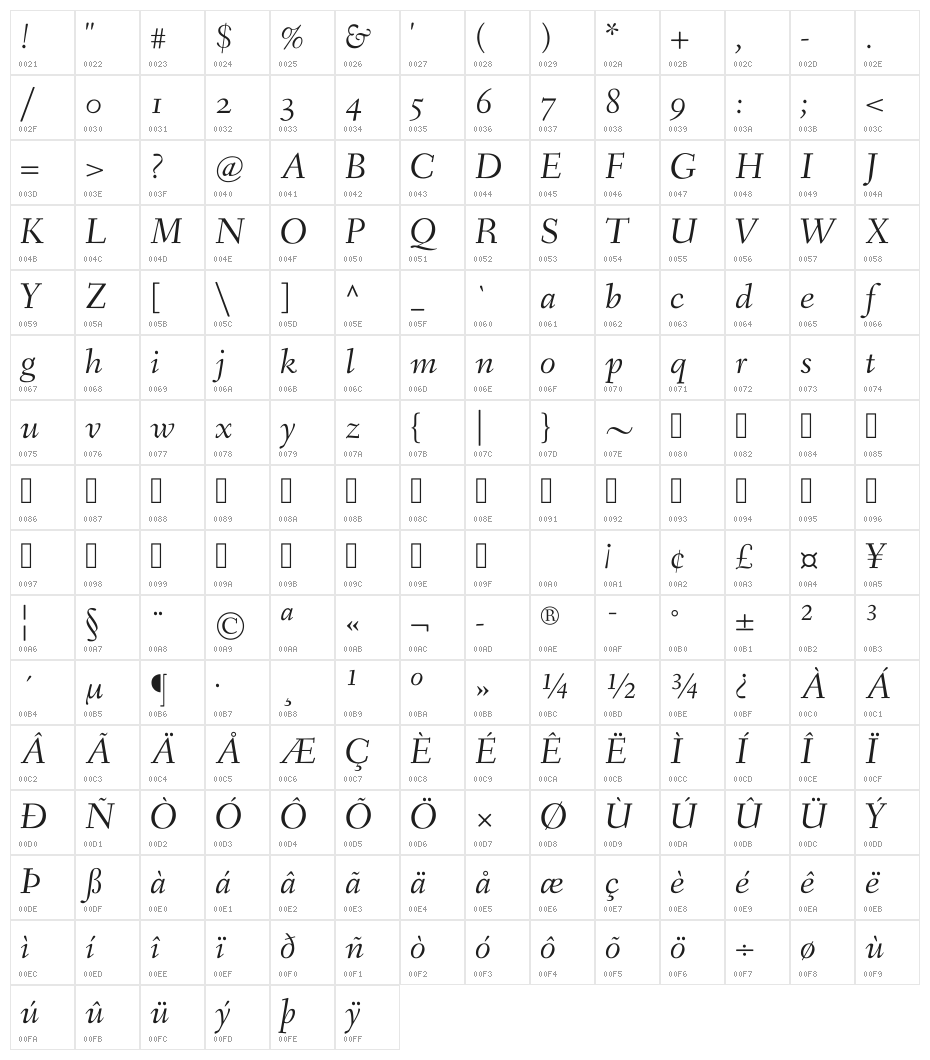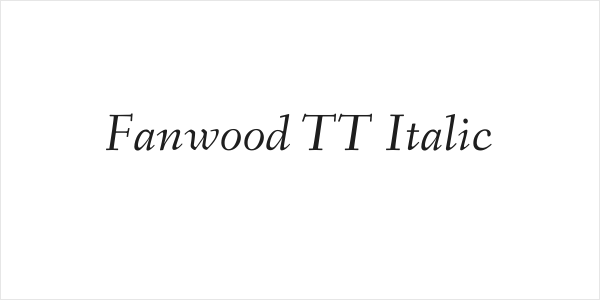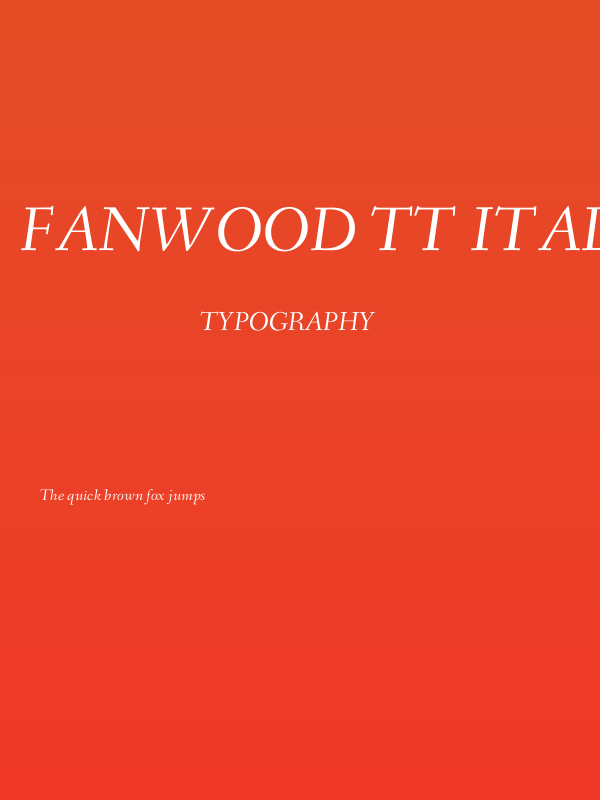
Fanwood TT Italic Font
Fanwood TT Italic Description
This elegant serif typeface features a classic italic style with a refined and sophisticated appearance. The letters are gracefully slanted, providing a sense of movement and fluidity. The font maintains a medium contrast between thick and thin strokes, enhancing its readability while retaining an artistic flair. The serifs are delicately crafted, adding a touch of tradition and formality. This typeface is versatile, suitable for both digital and print media, and can be used to convey a sense of elegance and professionalism.
| Proposed Projects | Ideal for book covers, formal invitations, elegant branding, and editorial design. |